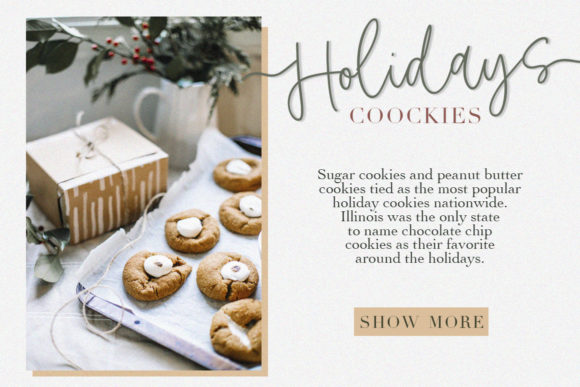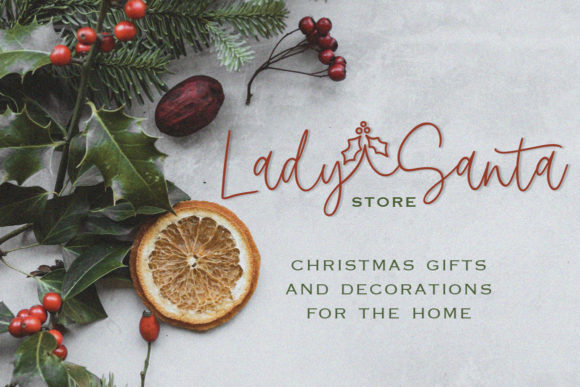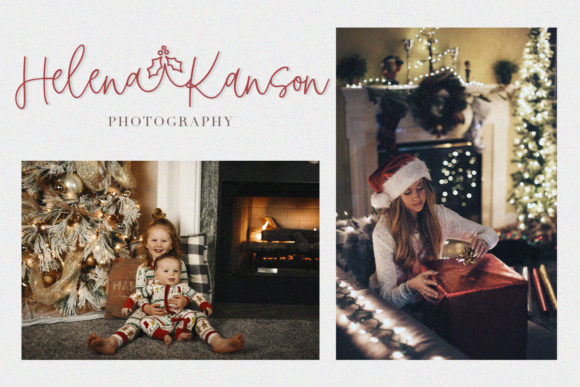
Introduction to Run Rudolf Font
As a designer, have you ever stumbled upon that perfect font that makes your creative project truly shine? For me, that moment came when I discovered the Run Rudolf Font. Its thin, stylish script lines captivated me, and I knew I had to share its magic with fellow designers.
The Run Rudolf Font is more than just a pretty face – it’s a high-quality design resource that’s perfect for creating stunning wedding invitations, beautiful stationery art, and eye-catching social media posts. And the best part? It’s available for free download, complete with a transparent background, making it a versatile asset for any designer.
With its unique style and professional look, the Run Rudolf Font is an invaluable addition to any designer’s toolkit. Whether you’re working on a creative project or simply looking for a reliable design resource, this font is sure to deliver.
Key Features of Run Rudolf Font
- High-quality design: The Run Rudolf Font is a unique and creative design resource ideal for any project.
- Unique characteristics: The Run Rudolf Font features a distinctive and playful design, making it an excellent choice for creative projects that require a touch of whimsy.
- Perfect for holiday projects: The font is specifically designed for holiday-themed projects, making it an ideal choice for Christmas and winter-themed designs.
Honest Review: Run Rudolf Font
I recently had the chance to work with the Run Rudolf Font, and I must say, it’s been a great addition to my design projects. This free download has been a game-changer for anyone looking for a high-quality, festive font.
- ✨ Beautifully designed characters with a transparent background, making them easy to use on any design project
- ✨ Perfect for holiday-themed projects, from greeting cards to gift tags
- ✨ High-quality design that’s sure to impress
- ⚠️ The font is not ideal for small text, as the characters can become distorted
- ⚠️ The font may not be suitable for corporate or formal projects, as it has a more playful tone
Overall, I’m really impressed with the Run Rudolf Font. It’s a fantastic design resource that’s perfect for creative projects where you want to add a touch of holiday cheer. I highly recommend it for anyone looking for a free, high-quality font.
The Run Rudolf Font is commonly used for creating festive and holiday-themed designs, such as Christmas cards and gift tags. It’s also a great choice for adding a playful touch to presentations and documents.